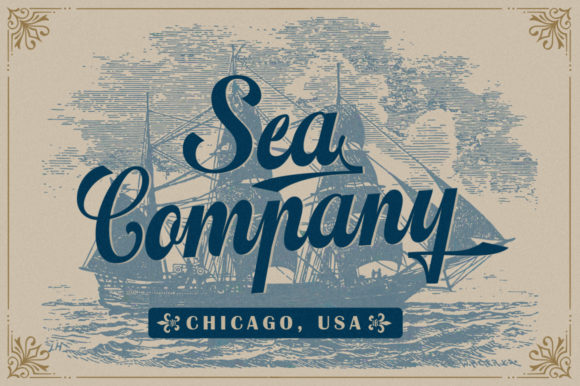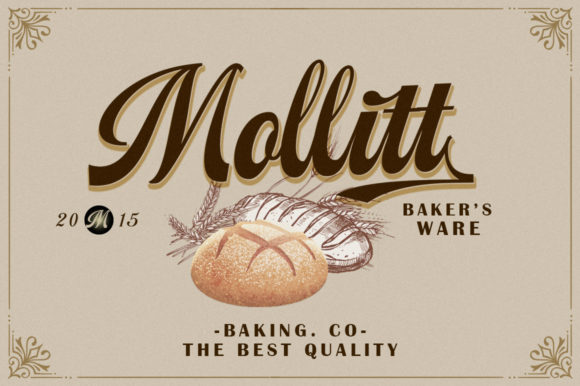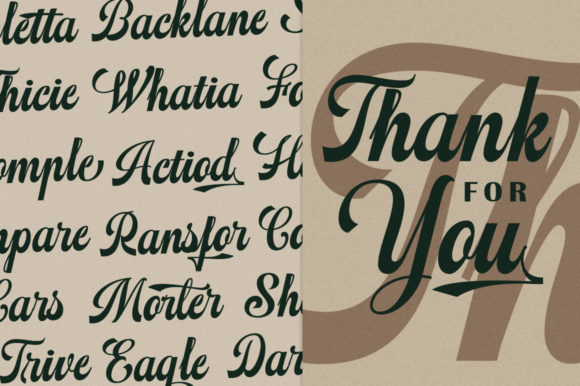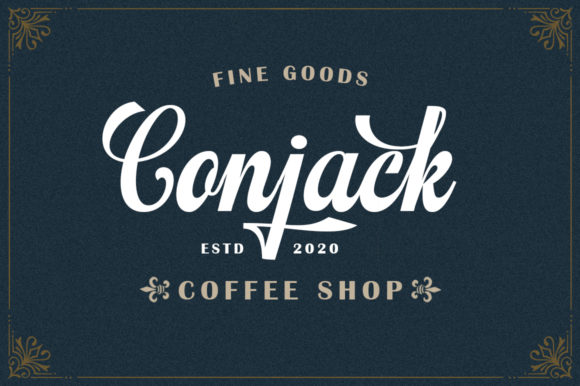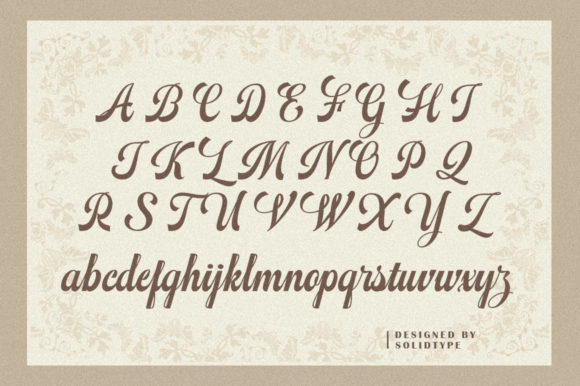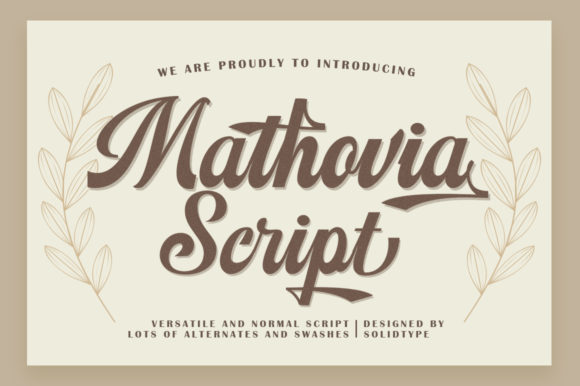
Mathovia Script Font
About Mathovia Script Font
Mathovia Script is a vintage handwritten typeface that is bold, classic, & fun. It is perfectly suited for a wide variety of projects!